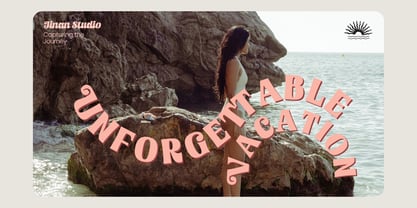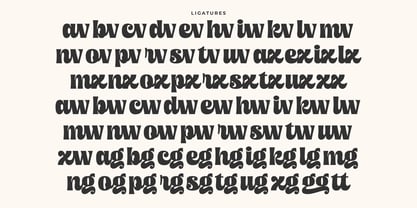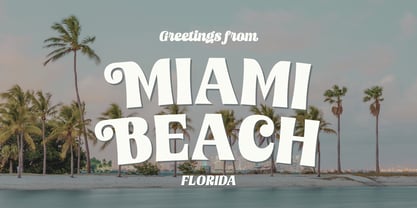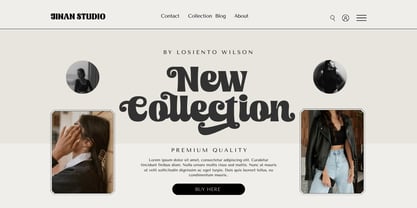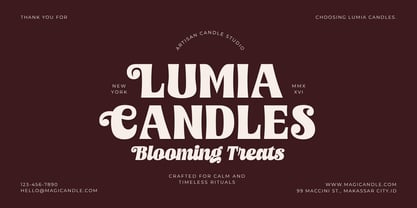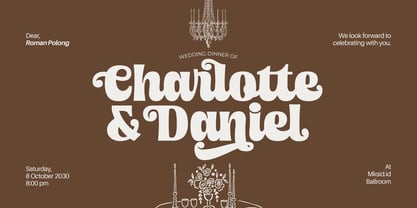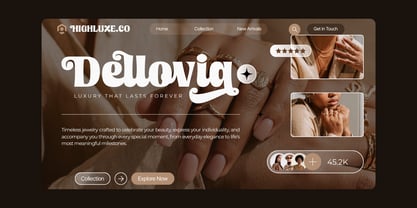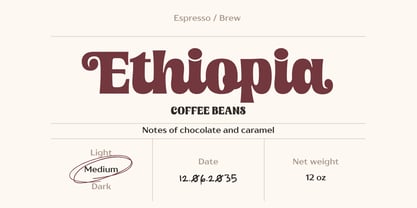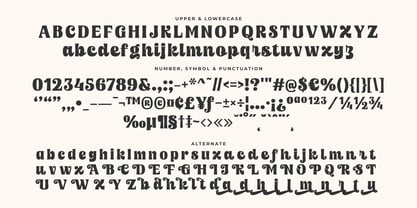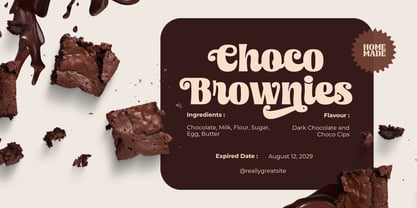
Moilenka
La familia tipográfica Moilenka fue diseñada por Andi Syahdang y publicada por Jinan Studio. Moilenka contiene 2 estilos y opciones de paquete familiar. Más información sobre esta familia
Meet Moilenka, a bold retro script font that blends vintage charm with playful curves and handcrafted personality. Inspired by classic sign painting, nostalgic packaging, and 70s-inspired typography, Moilenka features thick, flowing letterforms with unique swashes that instantly capture attention. Its bold character makes every word feel warm, expressive, and memorable.
Perfect for creating eye-catching logos, branding, product packaging, café identities, bakery labels, cosmetics, fashion brands, posters, book covers, social media graphics, merchandise, invitations, and editorial headlines. Whether you're designing a nostalgic brand or a modern retro project, Moilenka delivers a timeless look with a fresh, creative twist.
• Uppercase & Lowercase
• Numbers & Punctuation
• Stylistic Alternates
• Ligatures
• Multilingual Support
Moilenka is an excellent choice for designers looking for a bold script font, retro font, vintage script, handwritten display font, or logo font that stands out across both print and digital designs. Its expressive style makes it ideal for branding projects that need a unique, friendly, and nostalgic personality.
Whether you're crafting a boutique logo, coffee packaging, restaurant branding, wedding stationery, or social media content, Moilenka brings bold elegance and retro charm to every design.